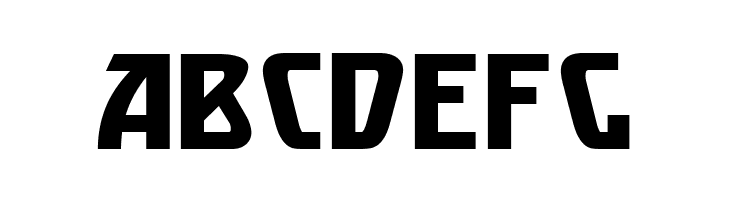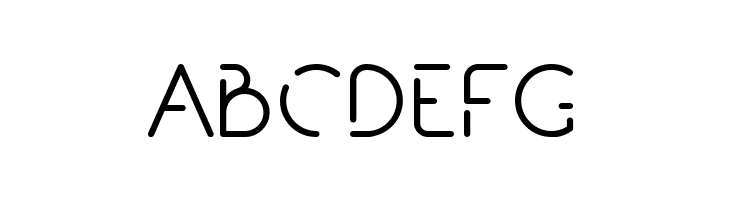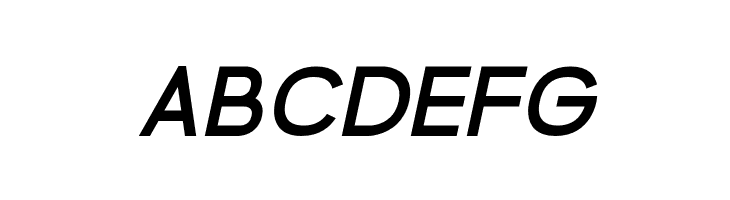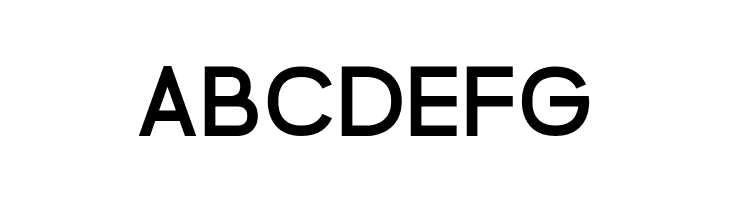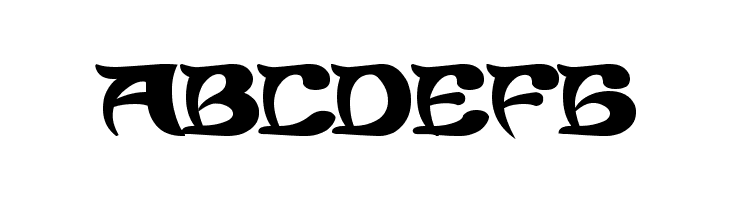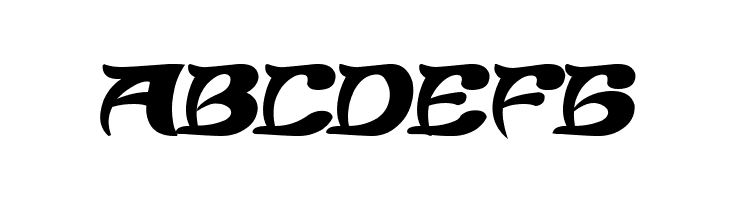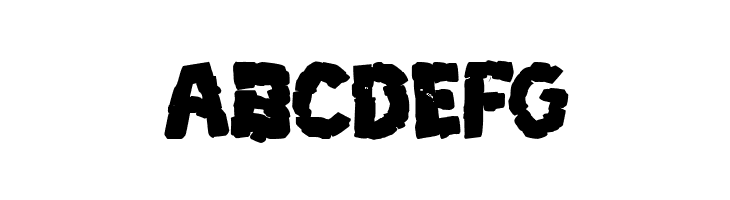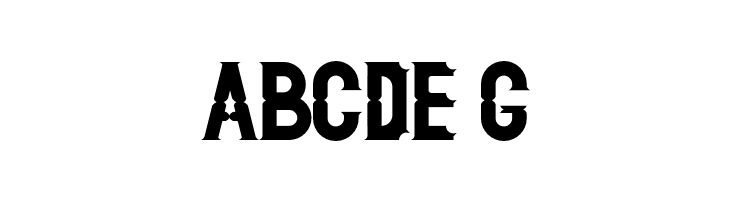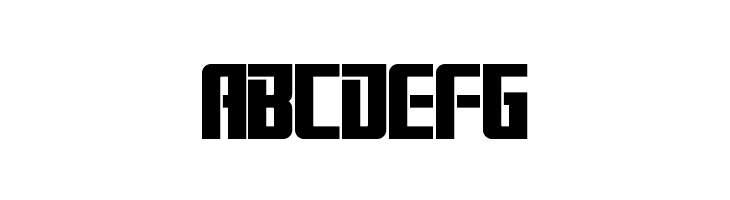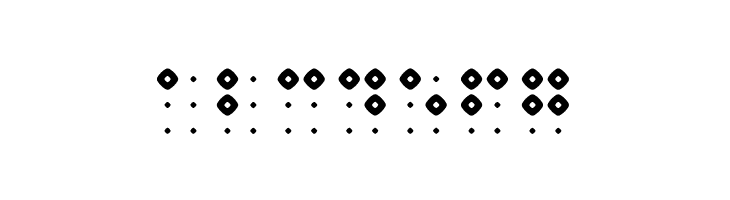
• Braillenum Hollow Bold
A bold, hollow circle-based font inspired by Braille, combining functionality with artistic design.
• Brain Storm Bold
A bold, dynamic font with sharp, angular edges and a calligraphic flair.
• Brain Storm Bold Italic
A bold, italicized font with dynamic, artistic strokes and a striking appearance.
• Brainfish Rush_PersonalUseOnly
A bold, outlined font with a playful and cartoonish style.
• Brainfish_PersonalUseOnly
A playful, bold, hand-drawn font with a whimsical style.
• Brainfish_PersonalUseOnly
A playful, bold font with a hand-drawn, cartoonish style and thick outlines.
• Brainstorm Bold
A bold, geometric font with a modern, industrial aesthetic.
• Brainstorm Bold Italic
A bold, italicized font with a futuristic and angular design.
• Brajandala
A playful, dynamic handwritten font with fluid strokes and a casual style.
• Brand New
• BrandHole FREE
A dynamic, cursive script font with a handwritten appearance.
• BrandingPro-Bold
A bold, modern sans-serif font with clean lines and strong readability.
• BrandingPro-BoldItalic
A modern, bold italic font with a sleek and dynamic style.
• Brandomi-Medium
A rustic, hand-drawn font with dynamic strokes and a vintage-modern appeal.
• Braser FREE
A bold, expressive handwritten script with a textured, brush-like style.
• Brasons Risool Free
A flowing, cursive font with elegant loops and a handwritten style.
• Brassett_Bold
A bold, geometric font with sharp, angular lines and a modern aesthetic.
• Brattsoon FREE
A dynamic and flowing script font with elegant, expressive letterforms.
• Brausepulver
A bold, calligraphic script font with ornate flourishes and dynamic curves.
• Bravarya Sky Free Regular